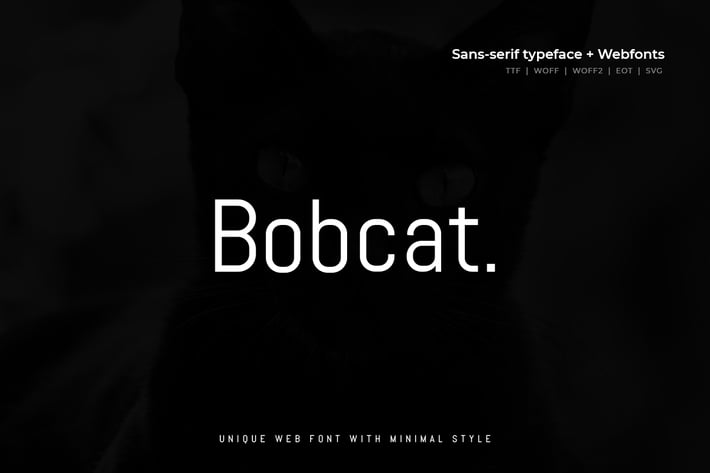
Bobcat - Modern Typeface + WebFont
Bobcat Modern Typeface
The Bobcat is a modern and Minimal Sans Serif typeface, Bobcat Sans can keep the minimalism at its level best and is a Perfect choice for Creative and Classic Typography Designs with unique typography.
Font Designed and Crafted by Webhance Studio.